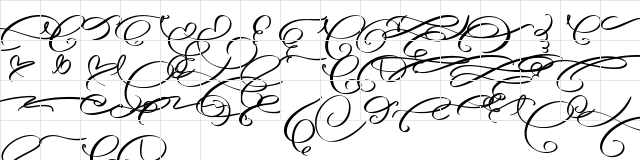
Angella Gardness Swash Regular
| Designer | Colllab Studio |
Design Context for Angella Gardness Swash Typeface
Angella Gardness Swash brings a calligraphic fluidity to the page — its connecting strokes and expressive curves give it an unmistakably human quality.